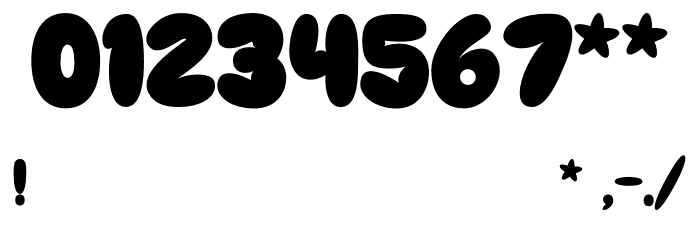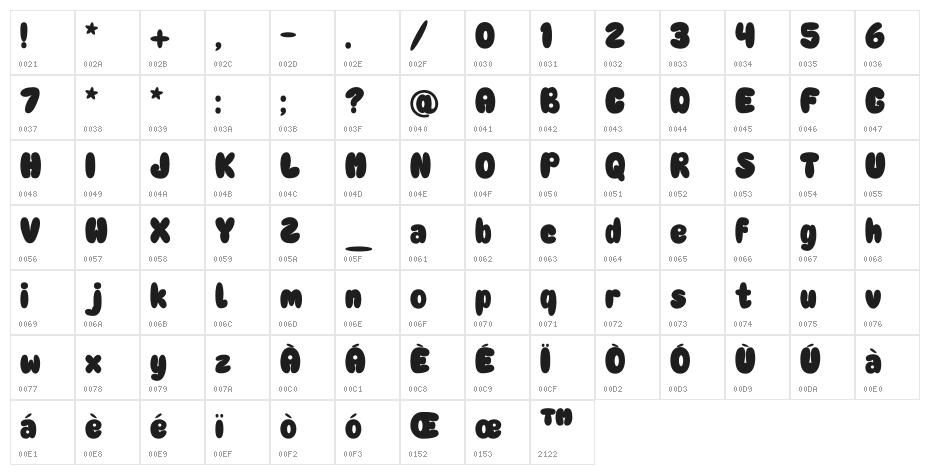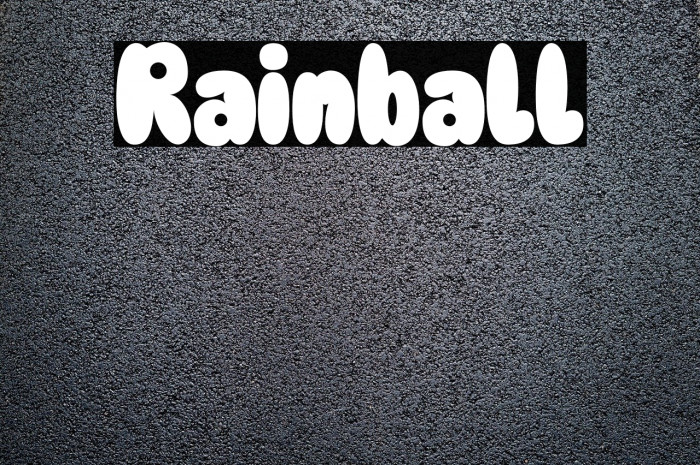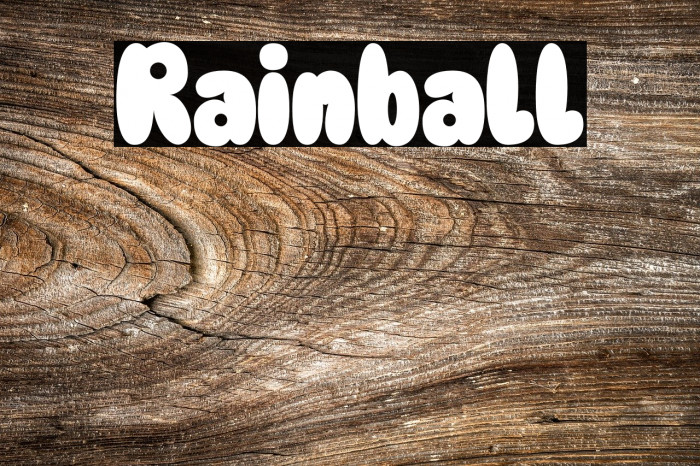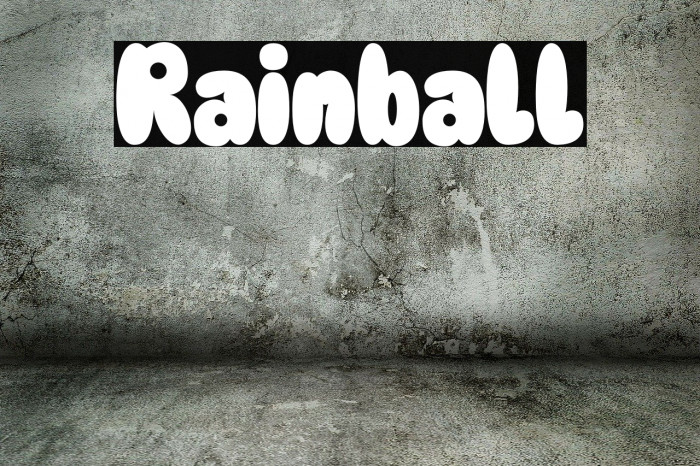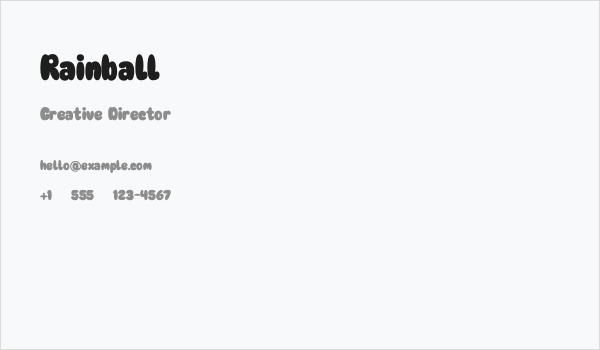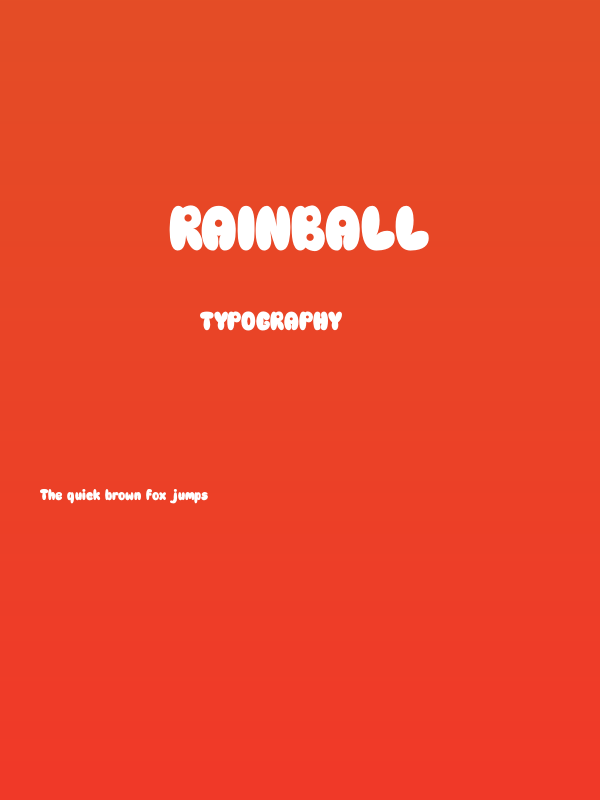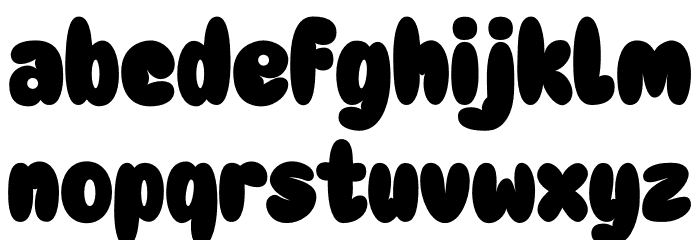
Rainball Font
Rainball Description
This playful and bold font features rounded, bubble-like characters that exude a sense of fun and whimsy. The letters are thick and uniform, with a consistent stroke width that gives them a solid, substantial appearance. The overall design is smooth and flowing, with no sharp edges or angles, making it feel approachable and friendly. The font's unique style is characterized by its exaggerated curves and soft, pillowy forms, which create a sense of movement and energy. It's perfect for projects that require a touch of creativity and imagination, such as children's books, playful branding, or eye-catching headlines. The numbers and special characters maintain the same bubbly aesthetic, ensuring a cohesive look across all text elements.
| Proposed Projects | Ideal for children's books, playful branding, eye-catching headlines, and creative projects. |